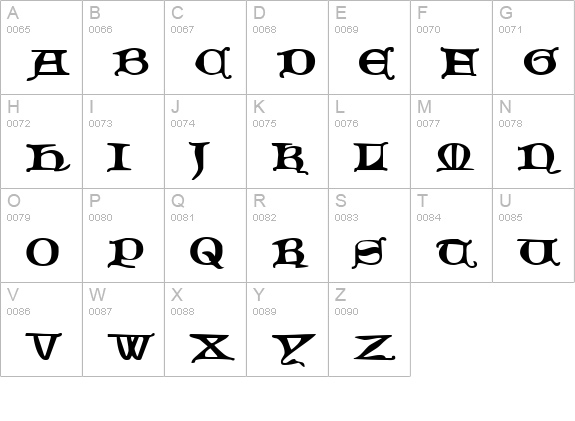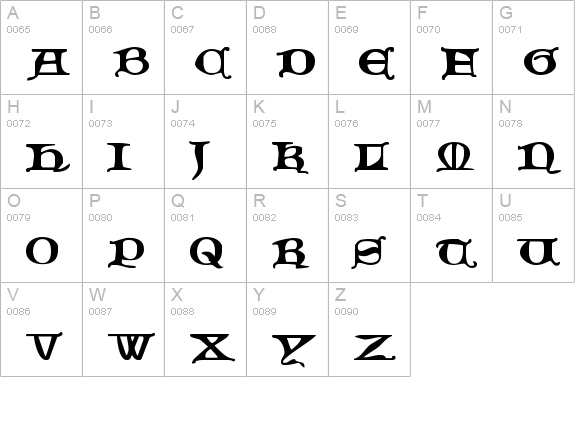
Queen & Country Expanded Font Details
Queen & Country Expanded is a distinctive, extended-width variant in the Queen typeface family \xE2\x80\x94 well suited to design and typography projects.
Queen & Country Expanded font is a stunning display typeface that exudes elegance and sophistication. With its elongated letterforms and delicate serifs, this font is perfect for creating eye-catching headlines, titles, and logos. The expanded version of the Queen & Country font adds an extra touch of grandeur and style, making it ideal for projects that require a bold and commanding presence. What sets Queen & Country Expanded font apart is not only its exquisite design but also the fact that it is available for free download at FontsMarket.com. This means that you can enhance your design projects with this beautiful typeface without having to spend a dime. Whether you're working on branding, packaging, or editorial design, Queen & Country Expanded font is sure to elevate your creations and leave a lasting impression on your audience. Download it today and add a touch of regal charm to your designs.